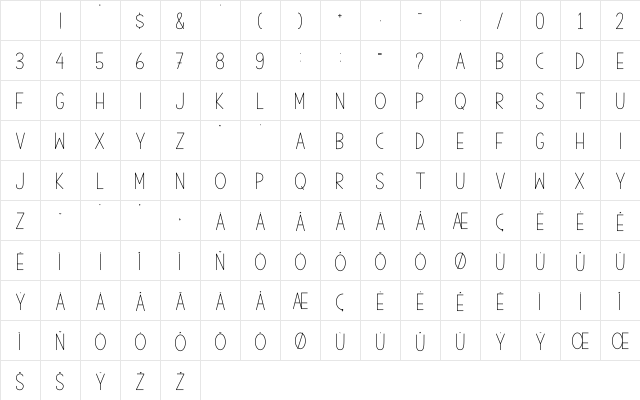
Complete House Minimalist Regular glyph index. Displaying only characters natively supported by House Minimalist Regular font.
House Minimalist is a composed and adaptable typeface that performs quietly and consistently across a wide range of design contexts.